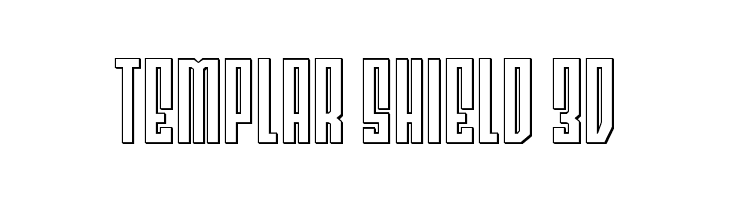
A bold, medieval-inspired font with tall, narrow letters and sharp edges.
A bold, geometric font with angular lines and a modern aesthetic.
A bold, geometric font with a 3D effect and strong visual impact.